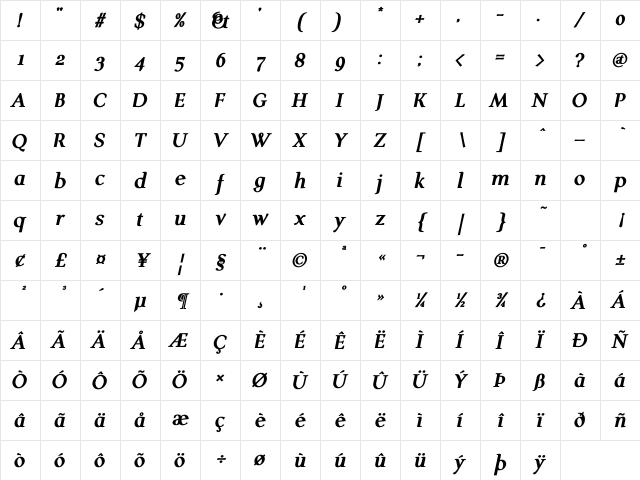
Quaaykop Bold Italic
Design Context for Quaaykop
Quaaykop is a composed and adaptable typeface that performs quietly and consistently across a wide range of design contexts. The slanted form adds forward momentum and visual energy. Its bold stroke weight gives it real presence on the page.
Pro Tip: Use Quaaykop for emphasis, pull quotes, and subheadings where its slanted energy can add rhythm to the layout.